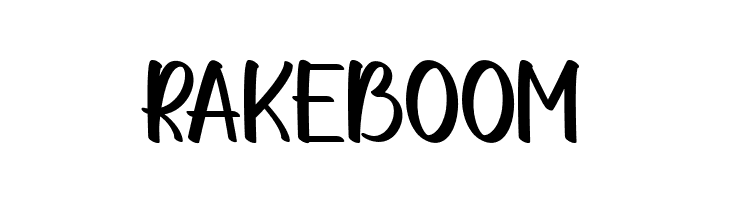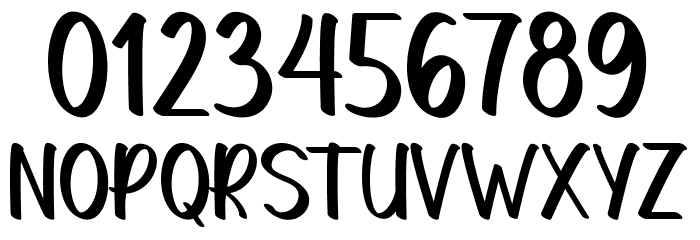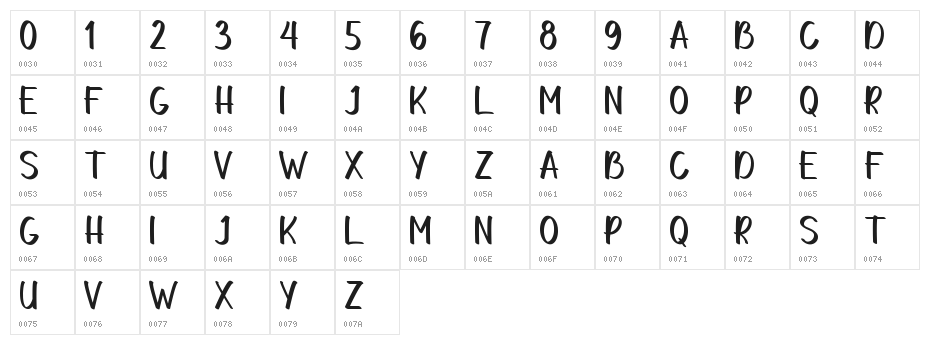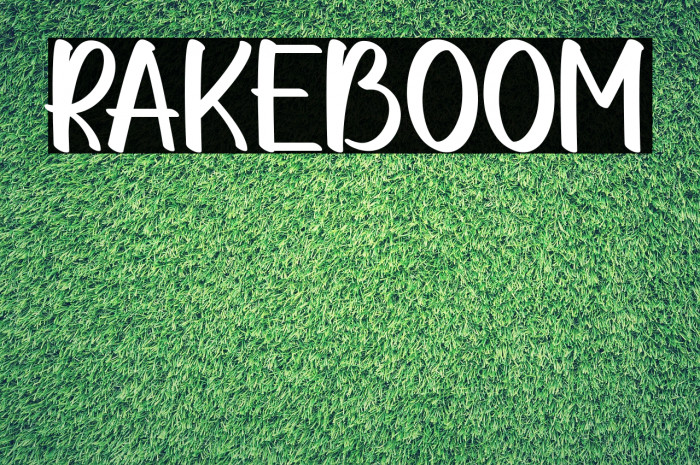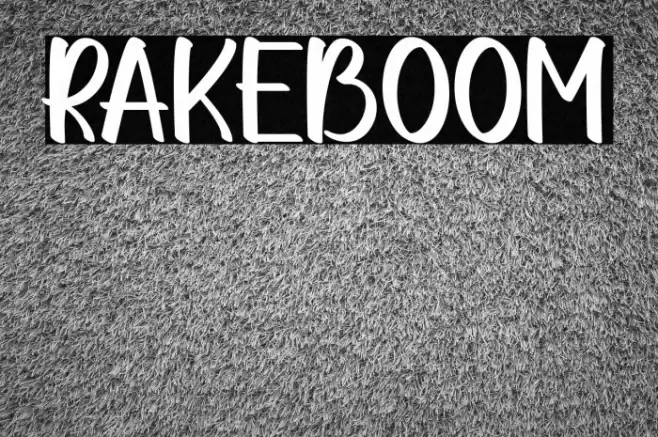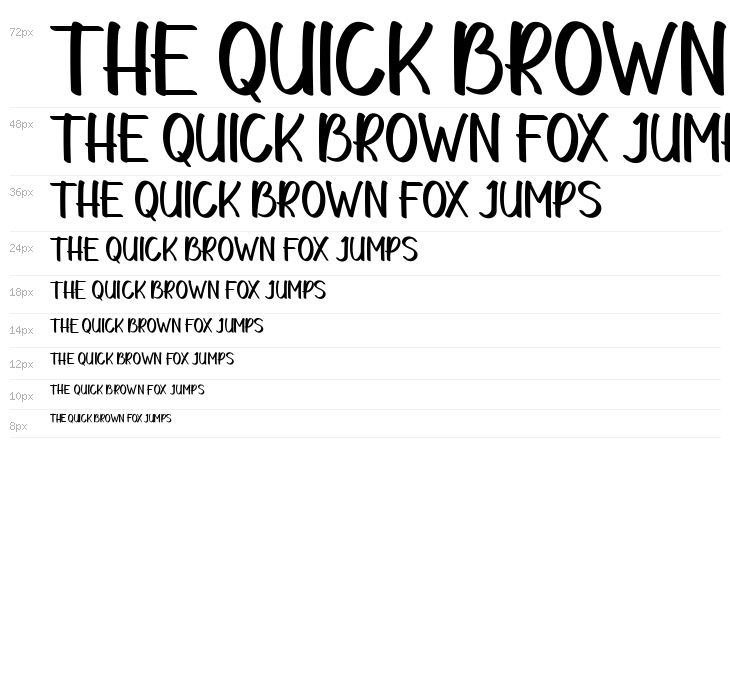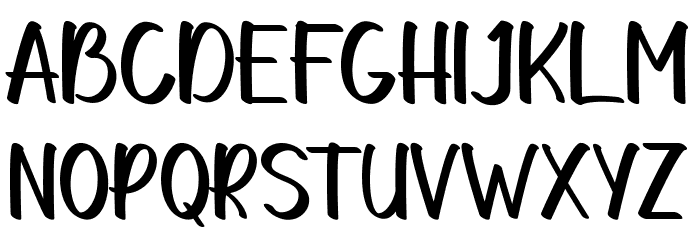
RAKEBOOM Font
RAKEBOOM Description
This font features a playful and energetic style with bold, rounded strokes that give it a friendly and approachable appearance. The letters are slightly slanted, adding a sense of movement and dynamism. The uppercase and lowercase characters maintain a consistent weight, providing a harmonious look across the text. The numbers are equally bold and rounded, ensuring readability and consistency. The special characters blend seamlessly with the rest of the font, maintaining the same playful and bold characteristics. Overall, this font exudes a sense of fun and creativity, making it ideal for projects that require a lively and engaging typeface.
| Proposed Projects | Ideal for children's books, playful branding, event invitations, and creative posters. |